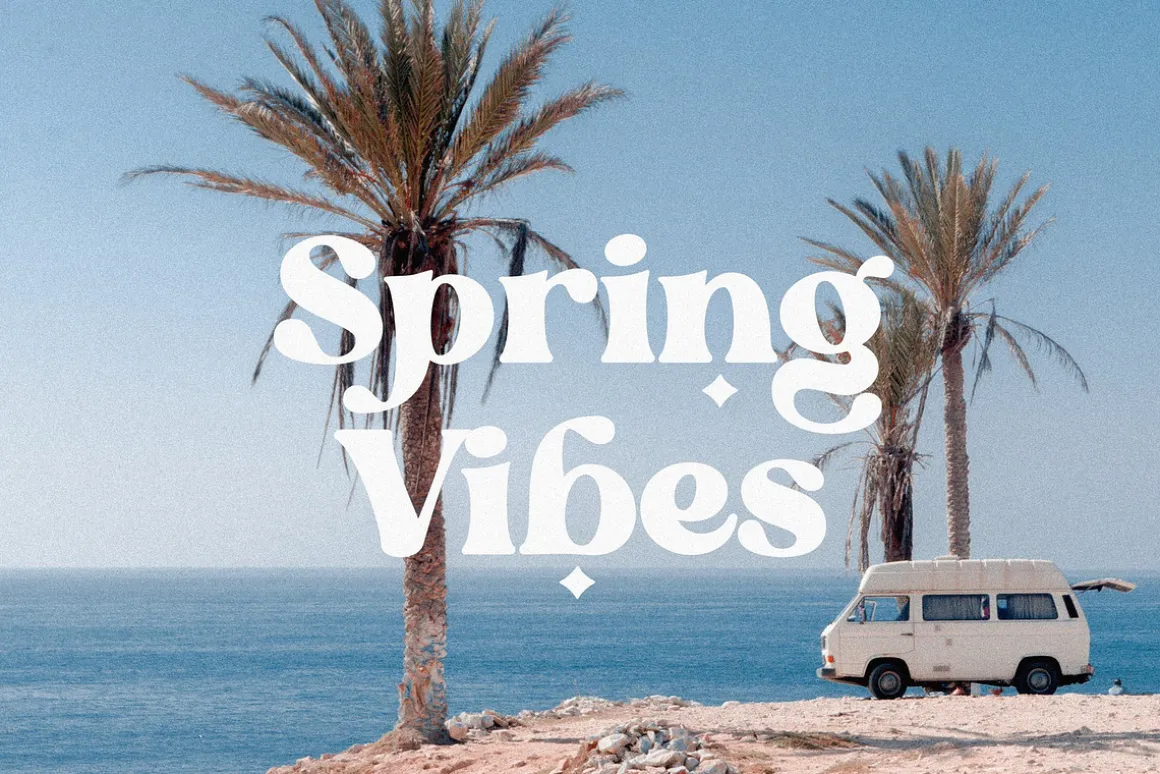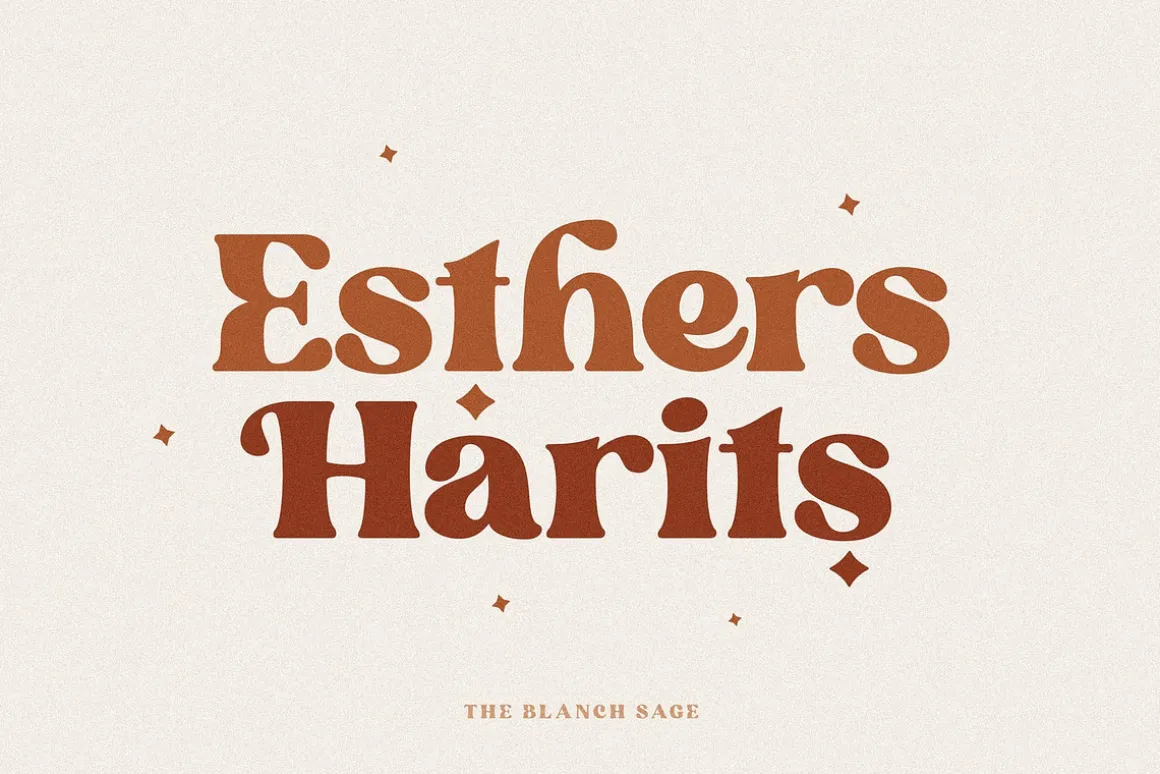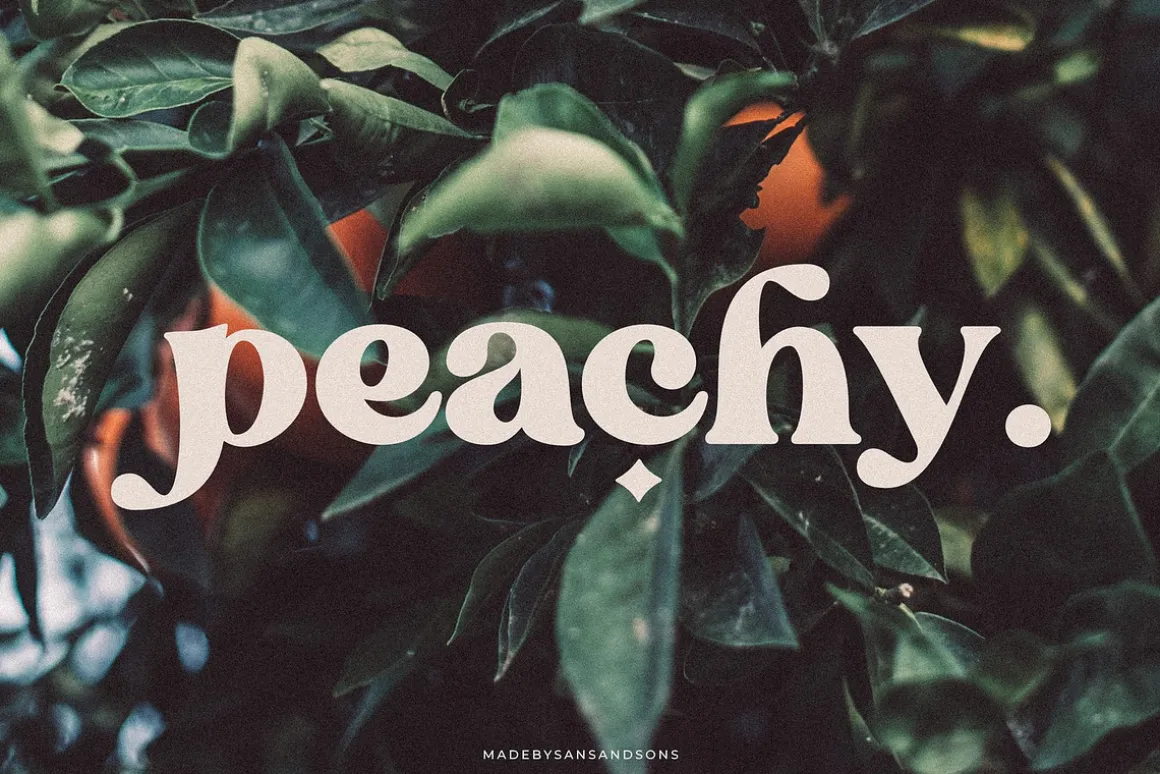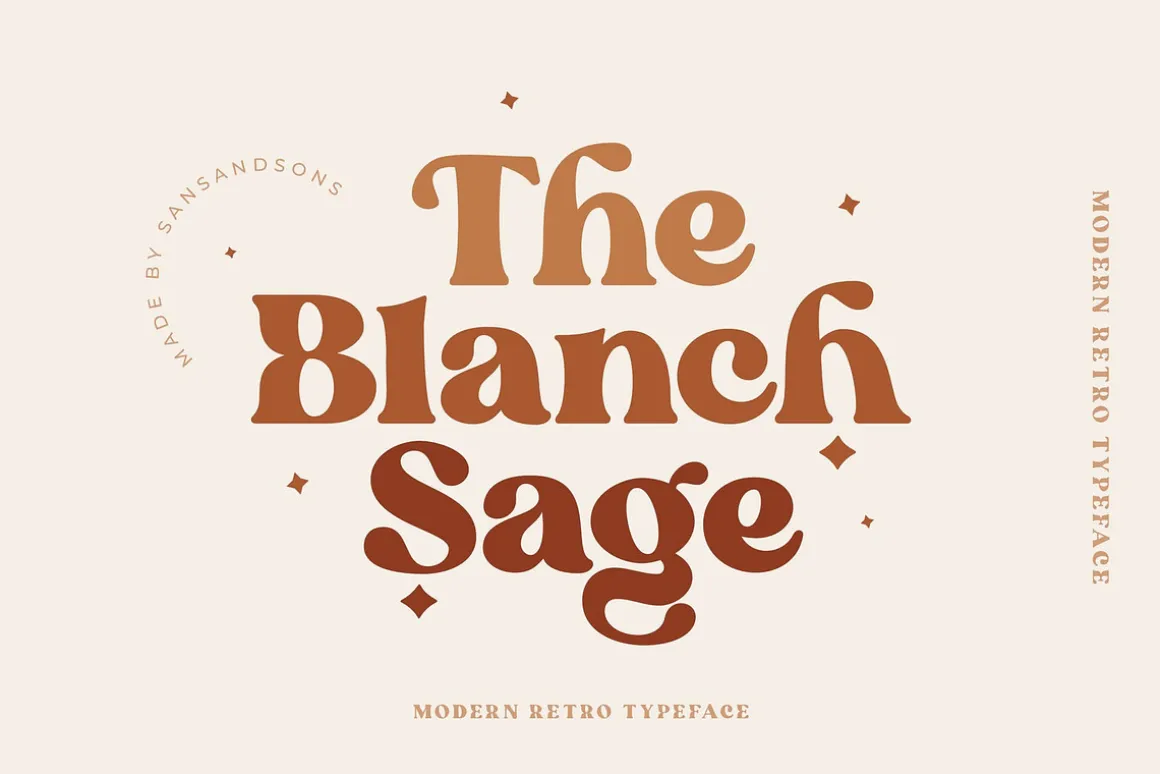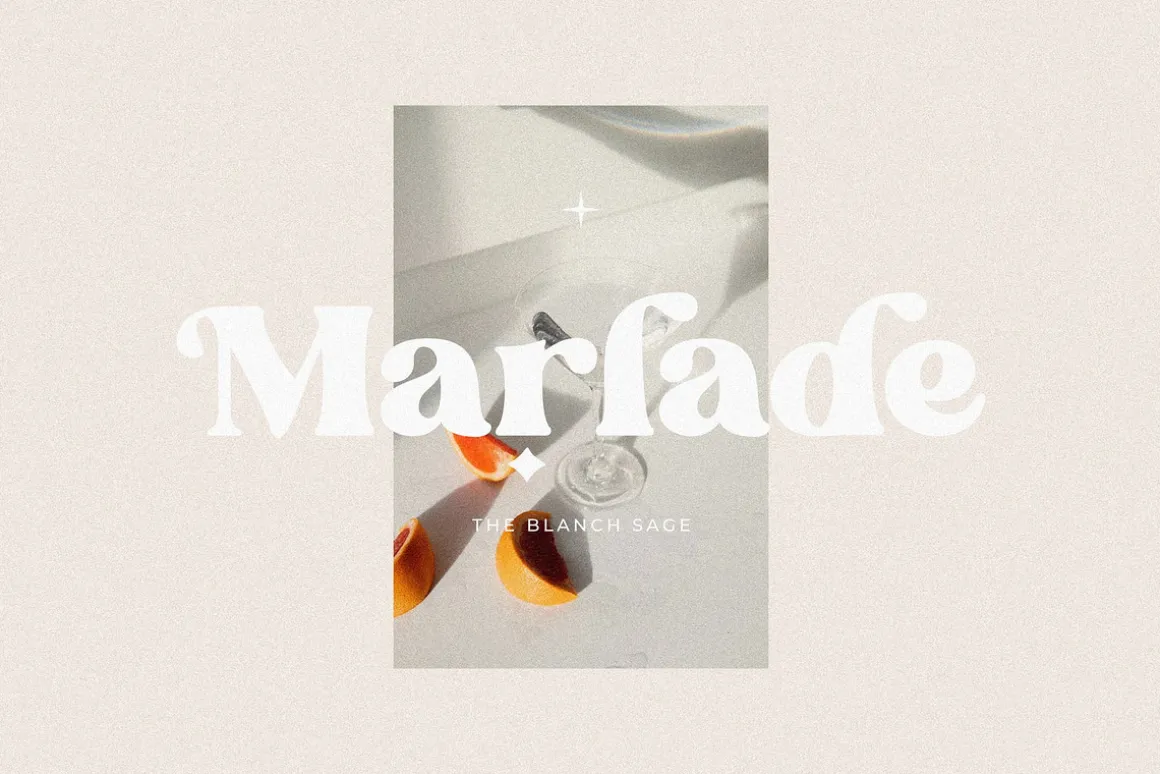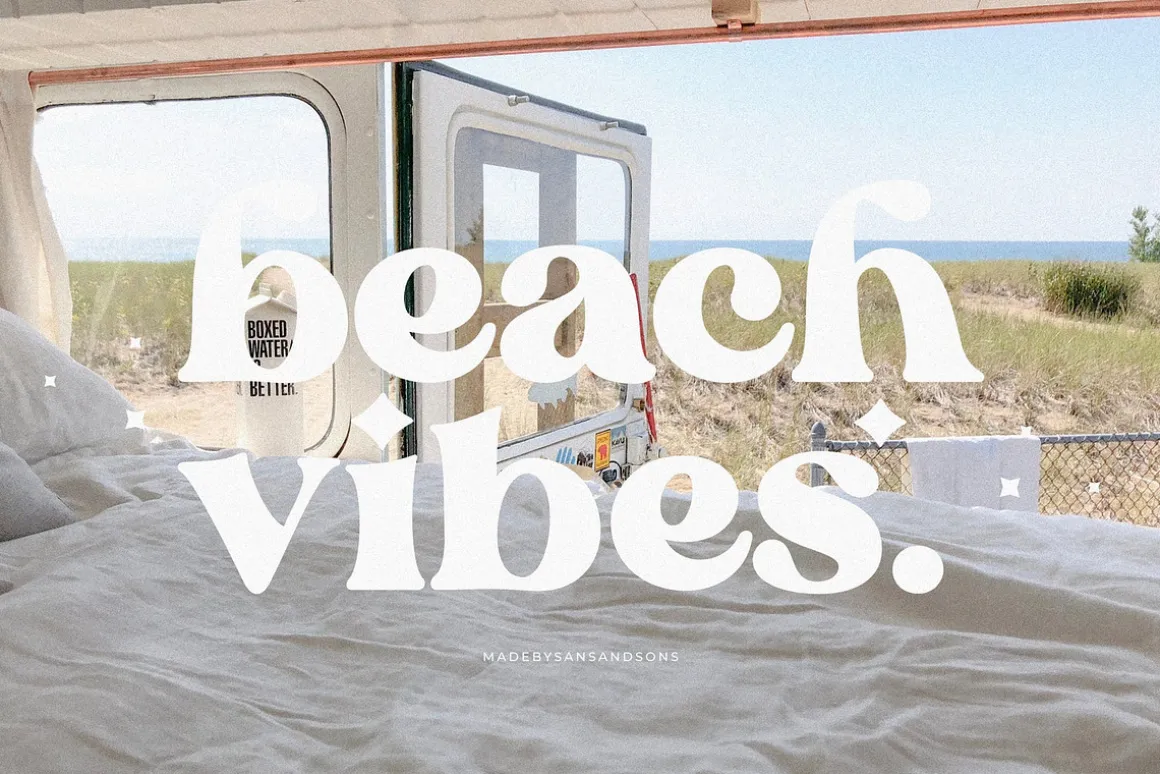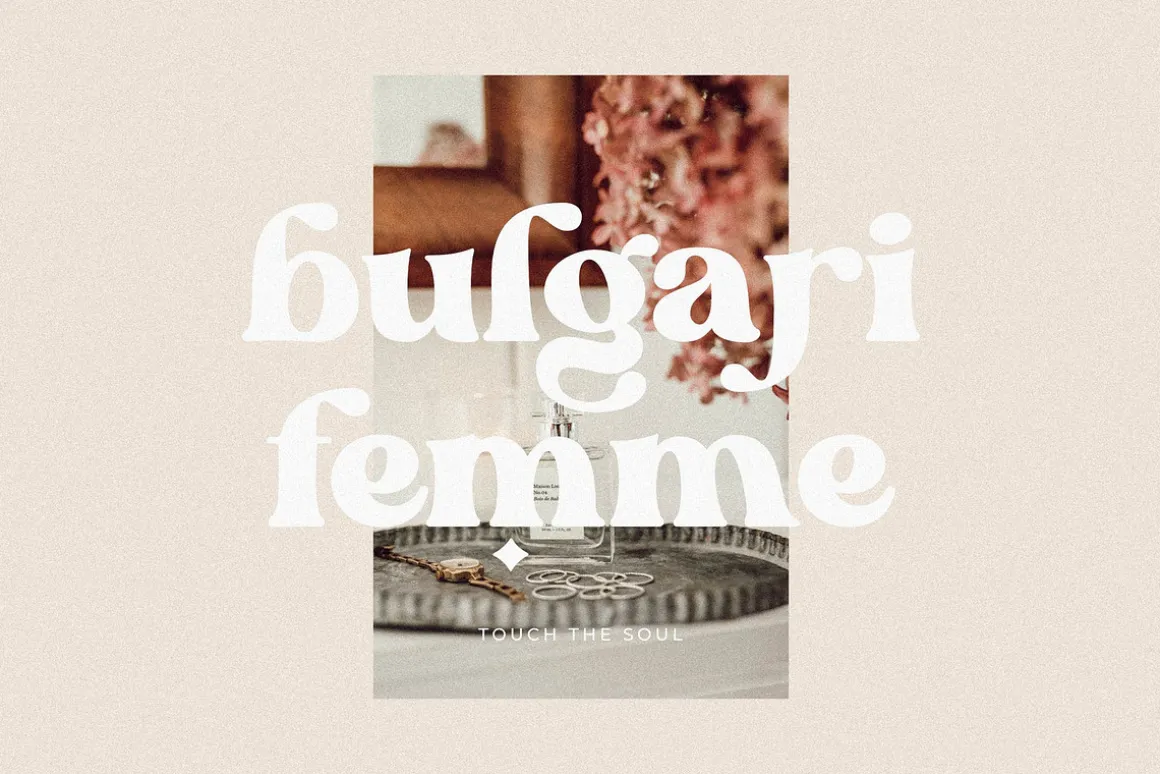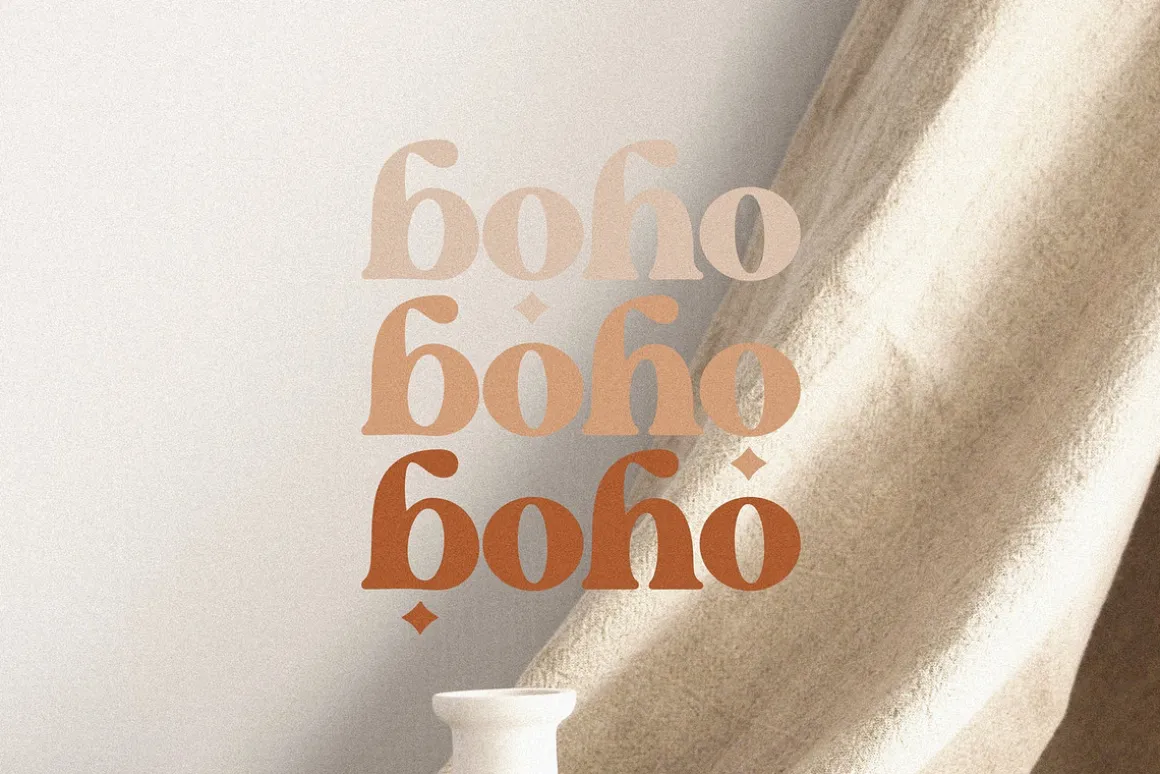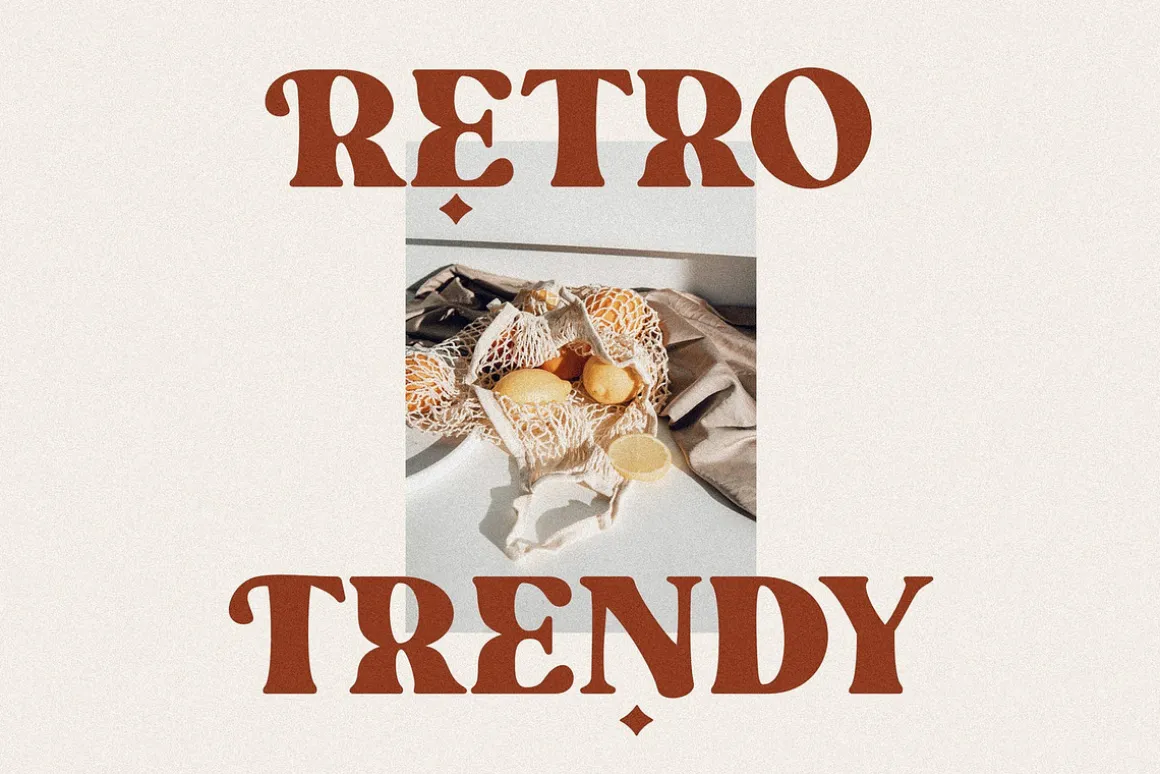
Blanch Sage – Modern Retro Font by Sans and Sons
introducing our new “Blanch Sage” Modern Retro with Fun and Elegant Style is perfect for branding, logos, invitation, master heads, and more.
Blanch Sage Features :
- Multilanguage
- Alternates
- Ligatures